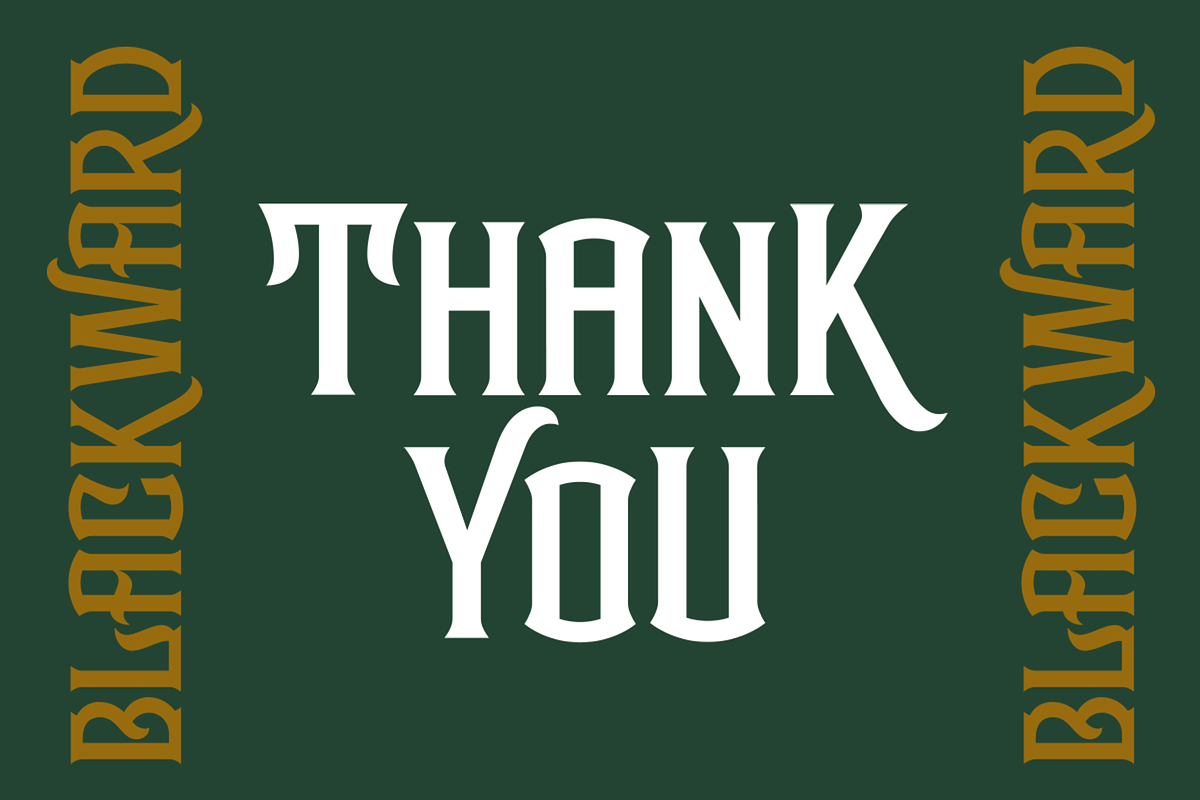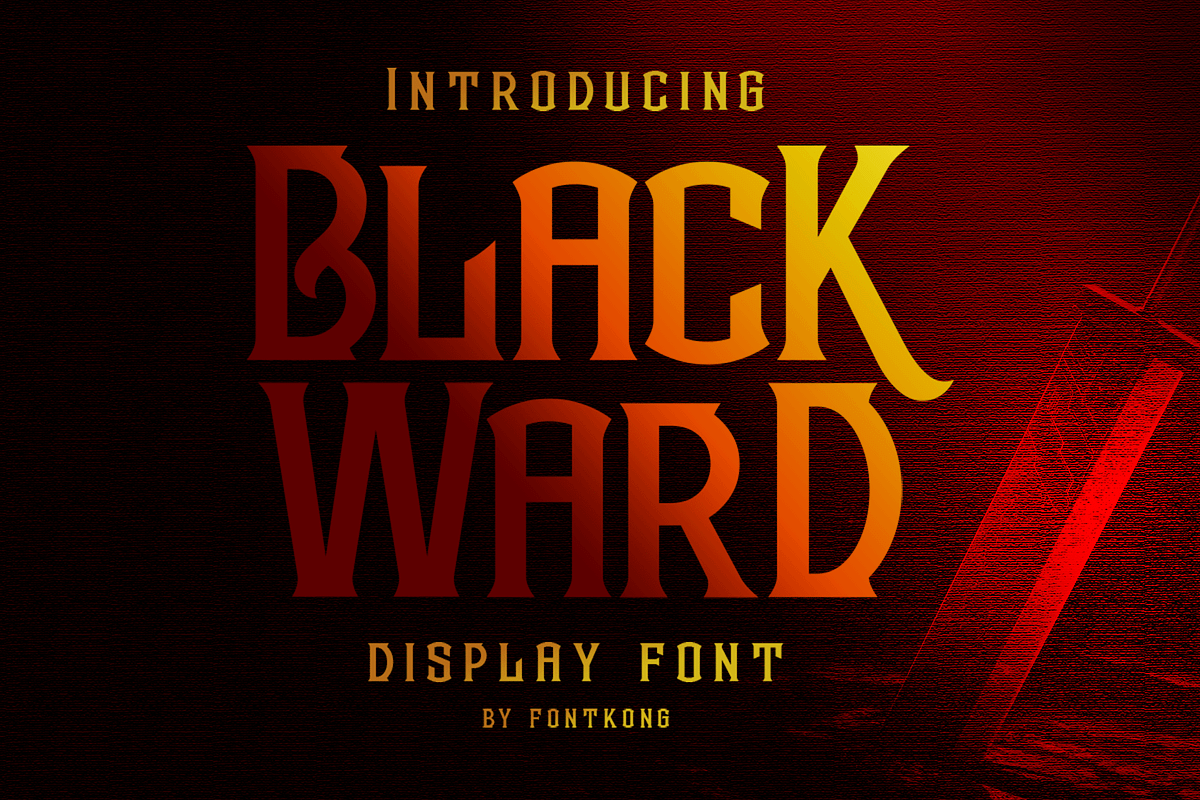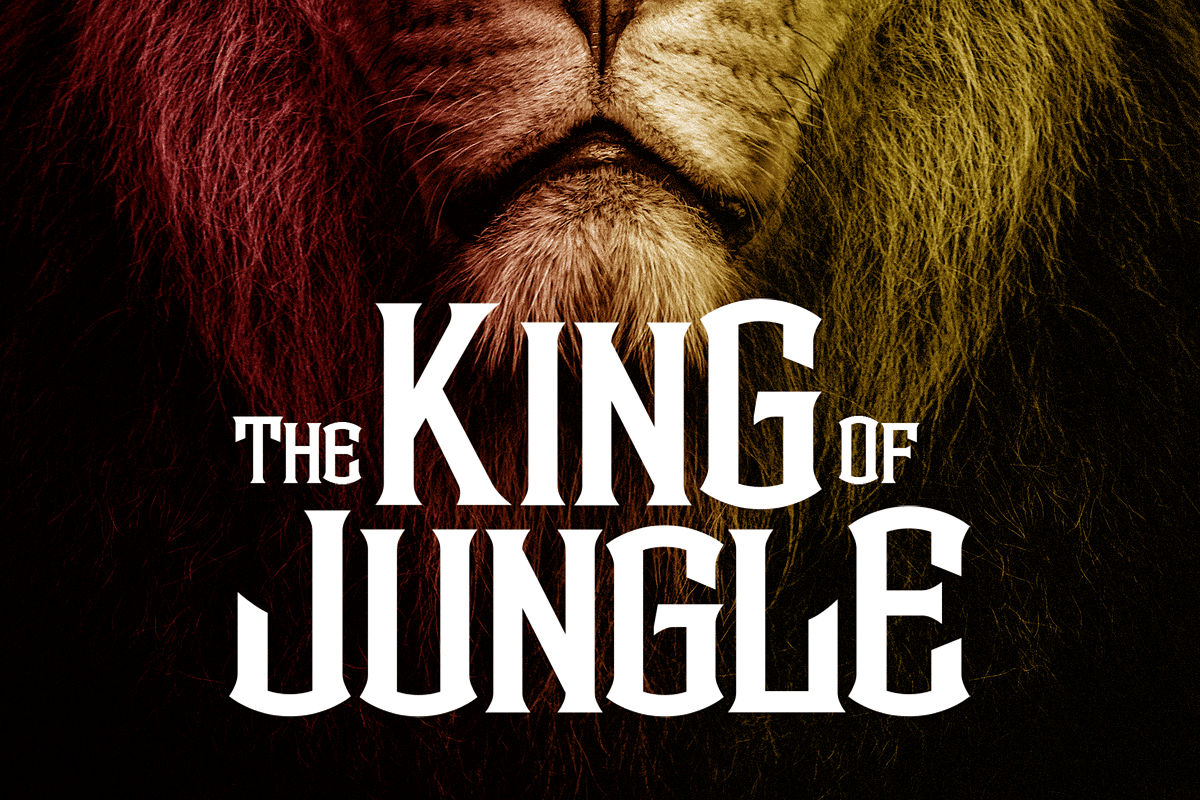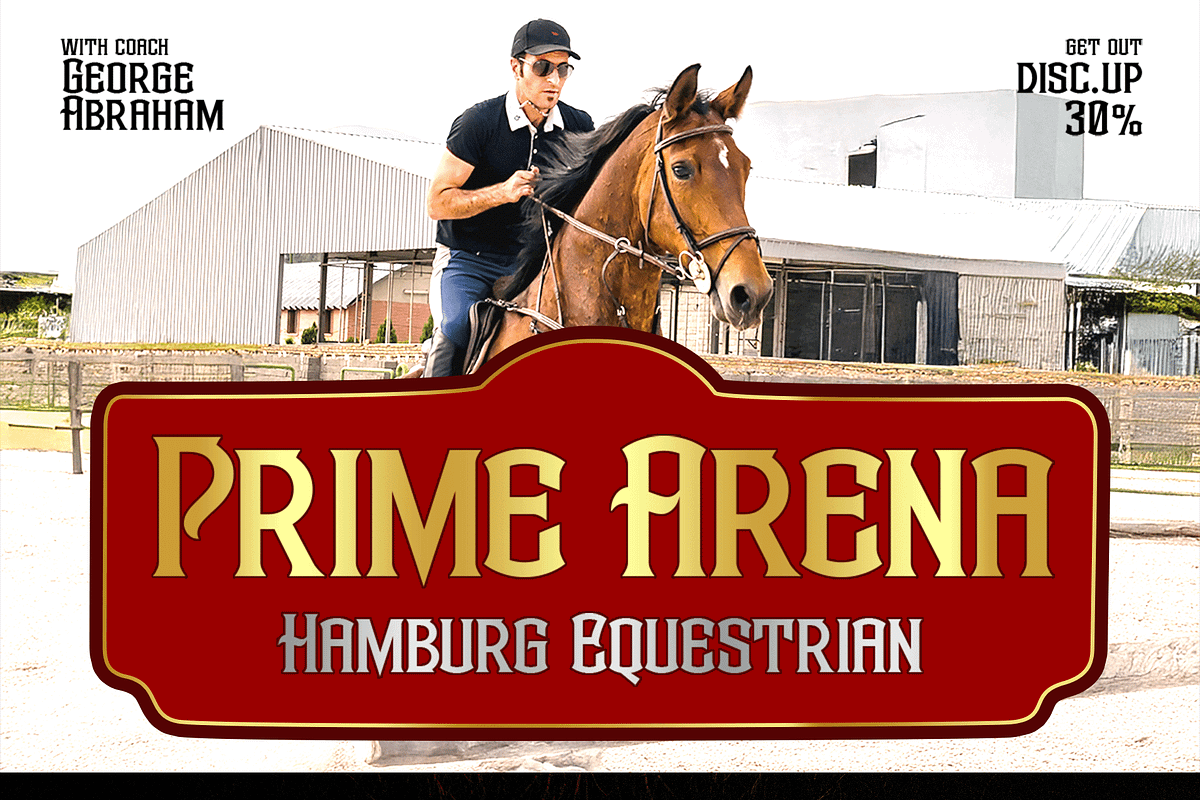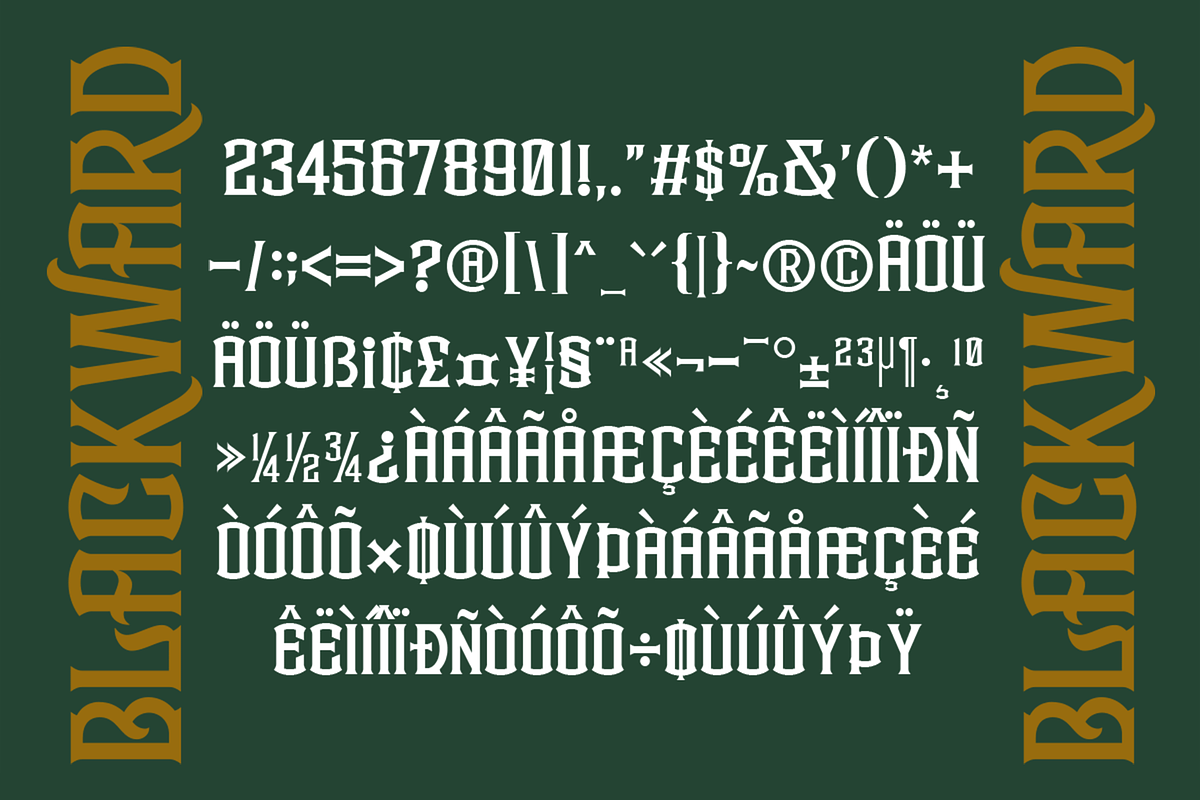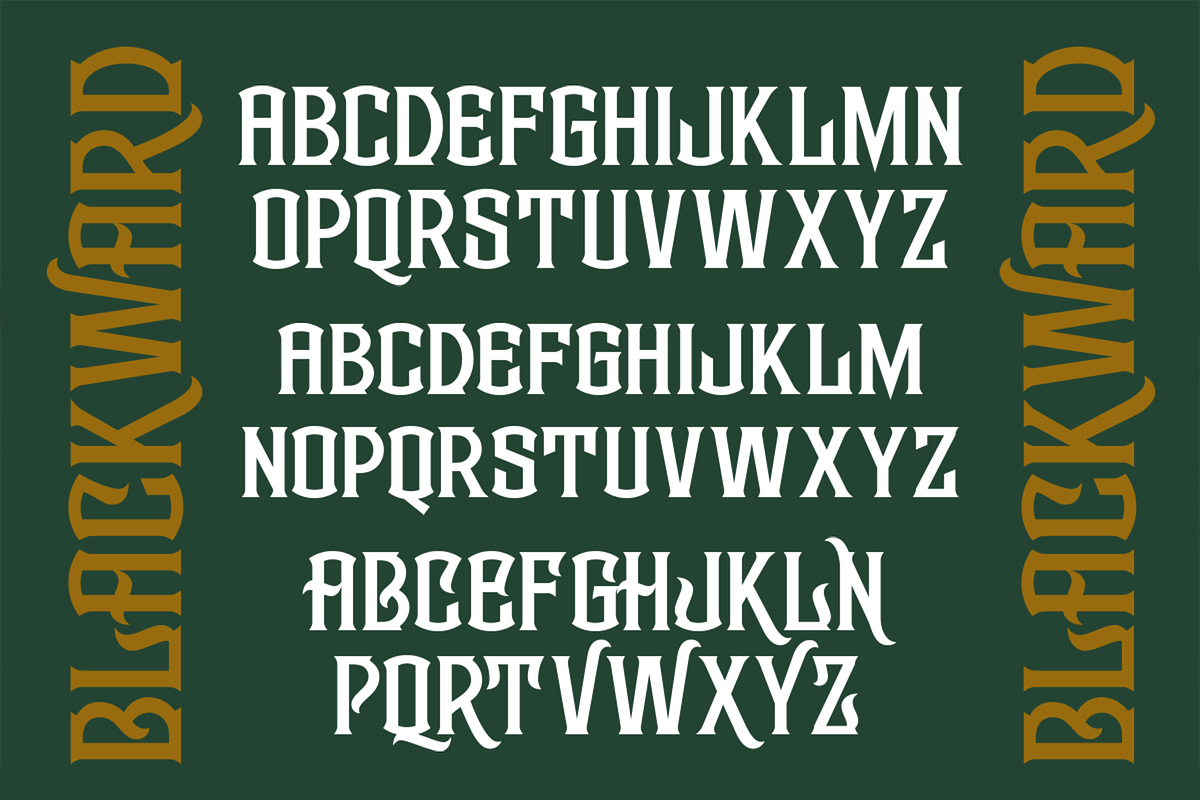
Blackward - Display Font
Introducing Blackward, a display font crafted to deliver strong attitude and striking visual intensity. With its bold construction, sharp details, and commanding presence, Blackward is designed for creators who want their typography to feel powerful, fearless, and unforgettable.
Blackward includes uppercase and lowercase letters, numerals, punctuation, and multilingual support, offering flexibility for both digital and print applications. Whether you're building a bold brand identity, creating high energy promotional materials, or designing intense visual content, Blackward delivers bold expression with confidence.